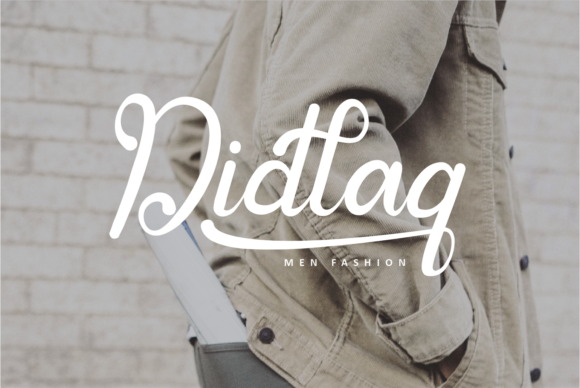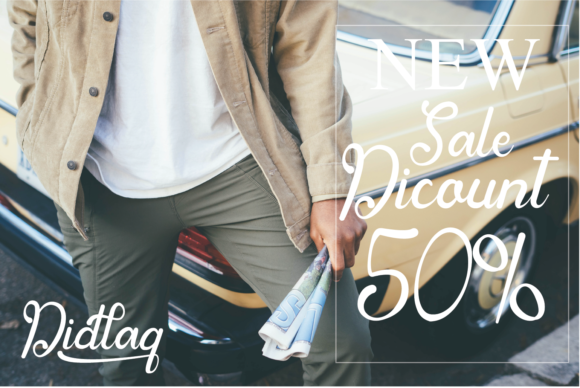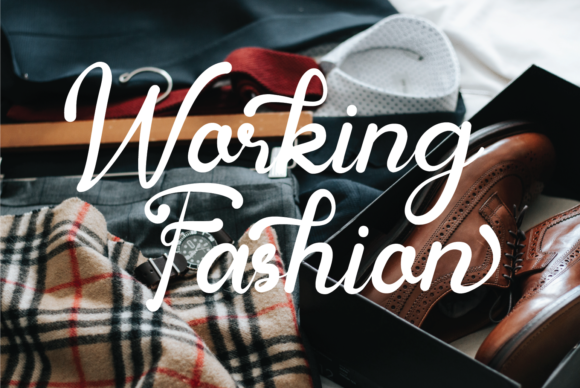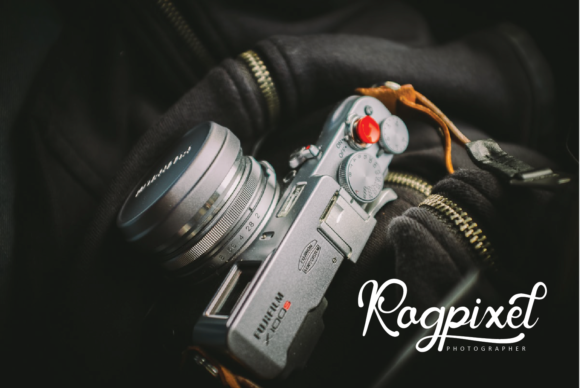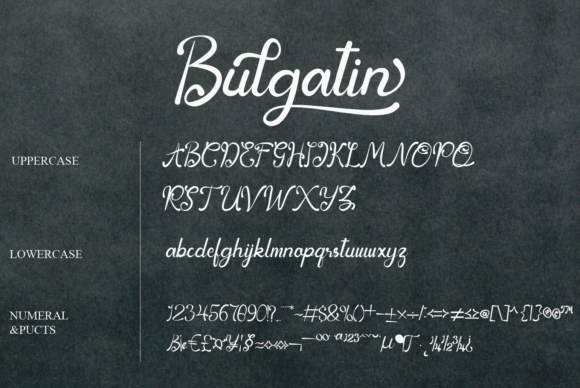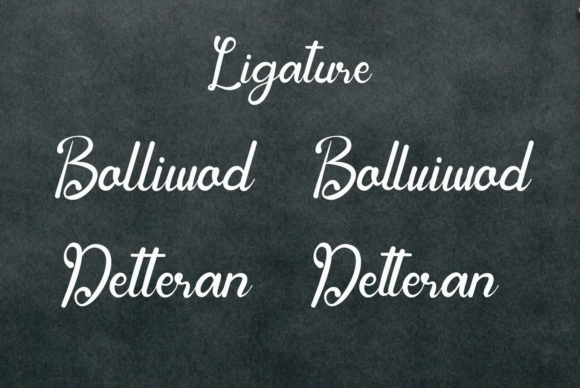
Discover the Timeless Elegance of the Bulgatin Font
As a designer, there’s nothing quite like the thrill of stumbling upon a font that captures the essence of your vision. The spark of inspiration hits, and suddenly, your project takes shape. It’s a moment of pure creative joy, and for many, it’s a key factor in bringing their design dreams to life. This is exactly what the Bulgatin Font aims to deliver.
With its charming and elegant flair, the Bulgatin Font is the perfect addition to any design project. Whether you’re crafting a brand identity, creating wedding invitations, or designing labels, this versatile font will elevate your work to new heights. Its timeless appeal makes it a valuable asset for designers, allowing them to convey sophistication and refinement with ease.
By incorporating the Bulgatin Font into your designs, you’ll be able to create visually stunning pieces that leave a lasting impression. Its elegance and charm are sure to captivate audiences, making it a must-have for any designer looking to take their work to the next level.
Bulgatin Font Key Features
- Font Family: Bulgatin, a unique and elegant script font.
- Unique Characteristics: Features a distinctive, hand-drawn style with subtle flair and elegance, perfect for creative and design-intensive projects.
Bulgatin Font Review
The Bulgatin Font is a unique and stylish font that can elevate your designs to the next level. ✨ It’s perfect for creating eye-catching headings and adding a touch of sophistication to your typography. The font’s sleek and modern design makes it suitable for various industries, from fashion to technology.
Some of the key features that I like about the Bulgatin Font include:
- Its versatility – it works well in both digital and print designs
- Its readability – the font is easy to read, even at small sizes
- Its customizability – the font can be easily customized to fit your brand’s identity
- Its stylish and modern design
- ⚠️ The font may not be suitable for very formal or traditional designs
Overall, I’m impressed with the Bulgatin Font’s unique design and versatility. It’s a great addition to any designer’s toolkit and can help take your designs to the next level. With a little creativity and customization, the Bulgatin Font can help you create stunning and effective designs that grab attention and engage your audience.
Tips for Getting the Most Out of Bulgatin Font
Use Bulgatin font for vintage or retro-themed designs to add a unique touch.
Combine Bulgatin font with other fonts to create a visually appealing contrast.
Bulgatin font is commonly used for:
Designing posters, flyers, and brochures.
Creating social media graphics and advertisements.
Developing branding materials and logos.
Alternatives to Bulgatin Font
The Bulgatin Font is a modern sans-serif font known for its clean and elegant appearance. However, it may not be suitable for every design project. Here are some alternatives that designers can consider:
Open Sans is a popular sans-serif font designed by Steve Matteson. It’s highly legible and suitable for body text, making it an excellent choice for digital products and websites. Open Sans is more versatile than Bulgatin Font, with a larger character set and better support for various languages.
Comparison: Open Sans is more versatile and has better language support, but it may lack the elegant touch of Bulgatin Font.
Lato is a sans-serif font designed by Łukasz Dziedzic. It’s a modern font with a strong personality, making it suitable for branding and advertising projects. Lato has a similar feel to Bulgatin Font, but it’s more condensed and has a stronger x-height.
Comparison: Lato has a stronger personality and is more condensed than Bulgatin Font, but it may not be as elegant in certain contexts.
Montserat is a sans-serif font designed by Julieta Ulanovsky. It’s a geometric font with a strong urban feel, making it suitable for projects that require a modern and edgy look. Montserrat is more geometric than Bulgatin Font, with a focus on sharp angles and clean lines.